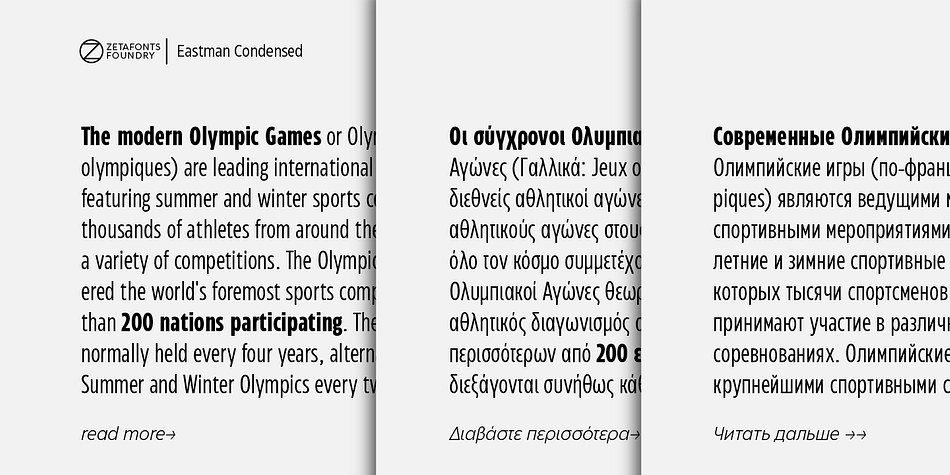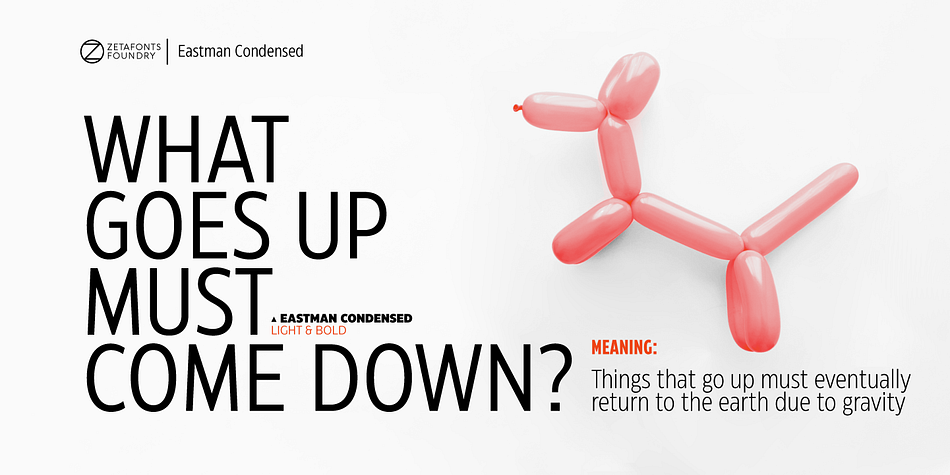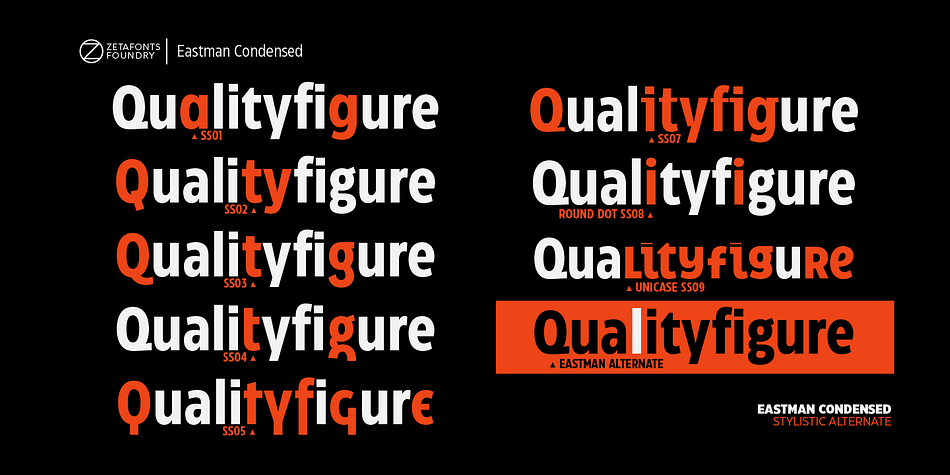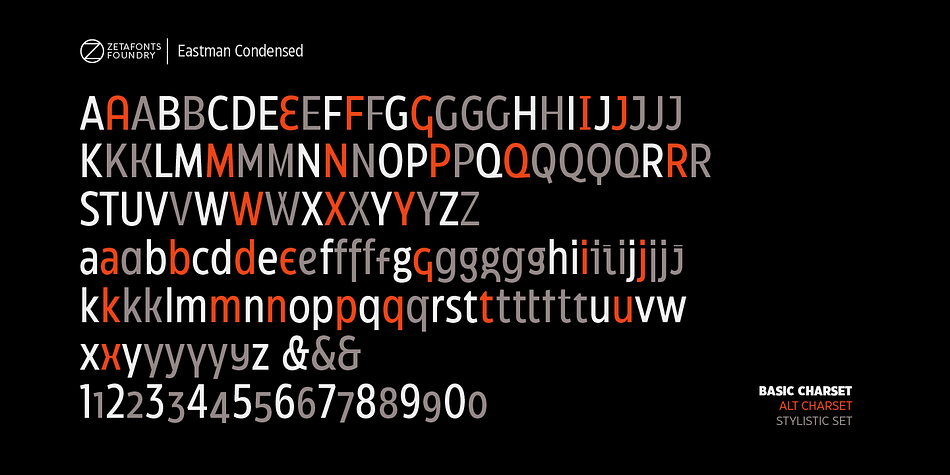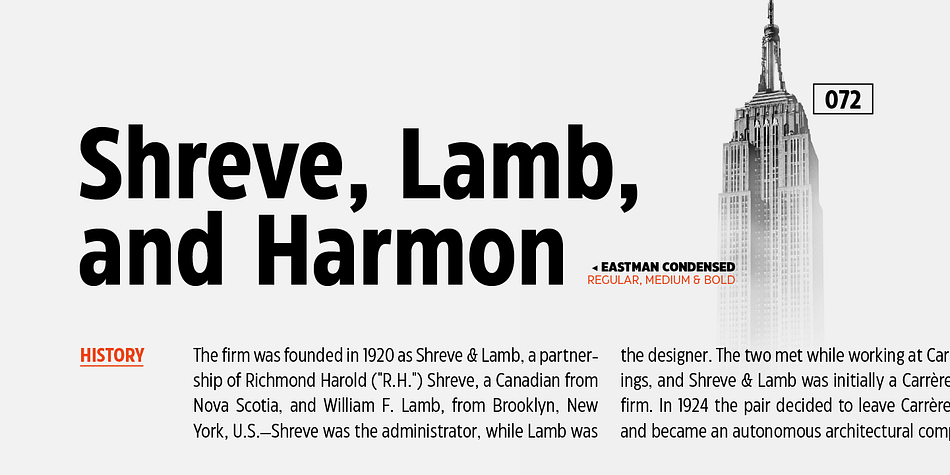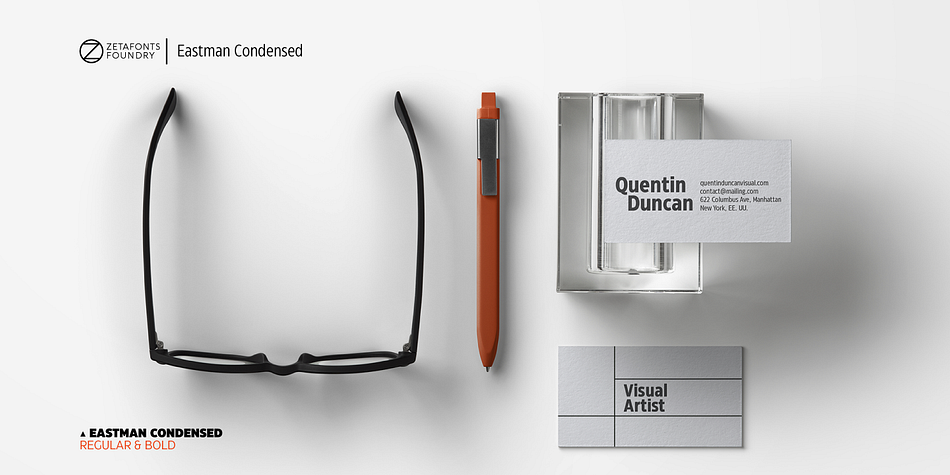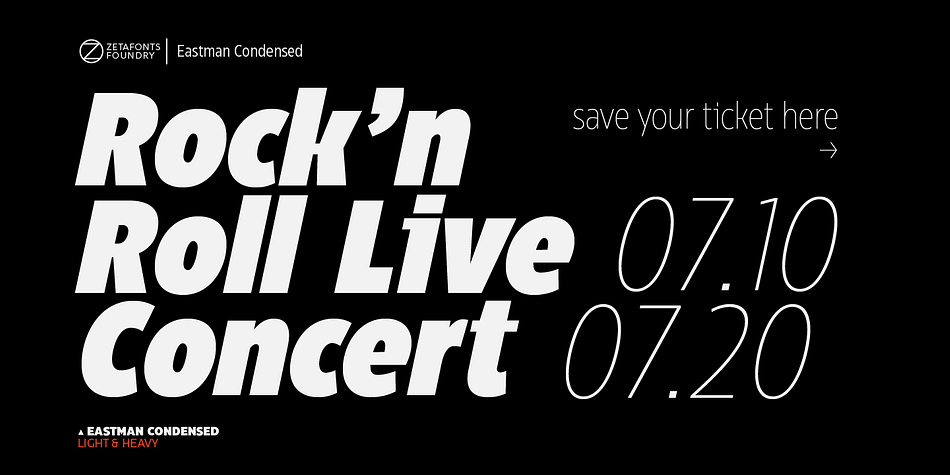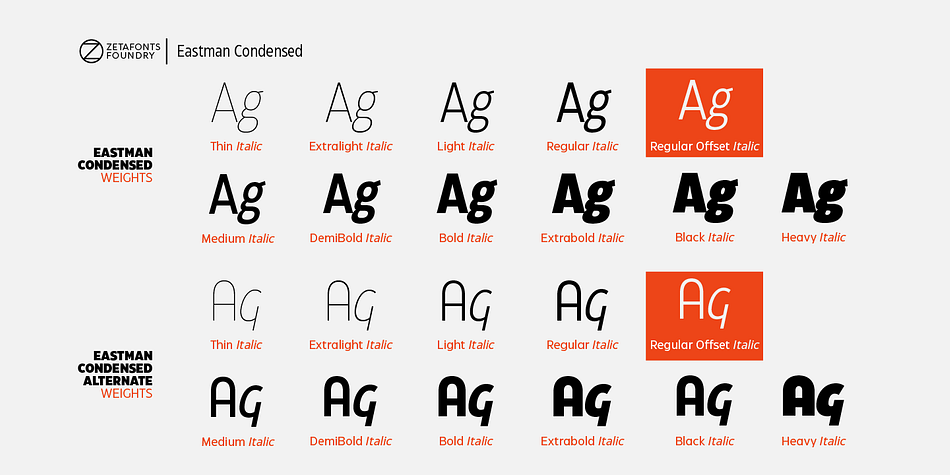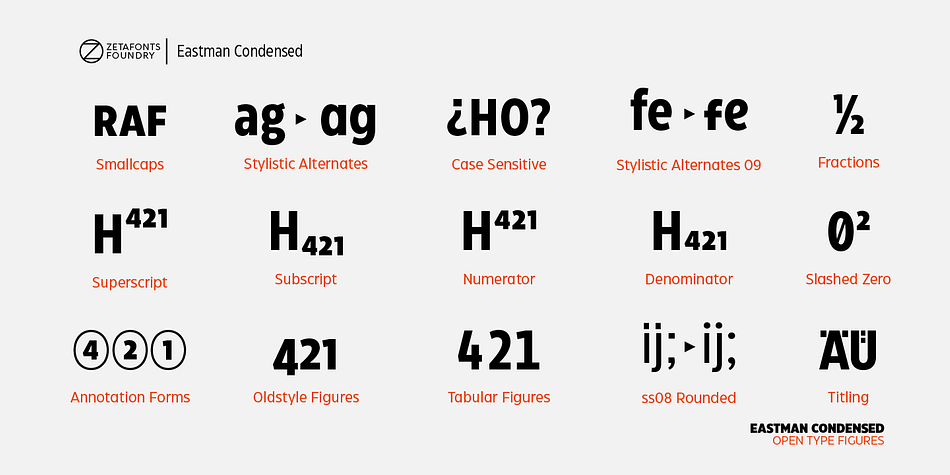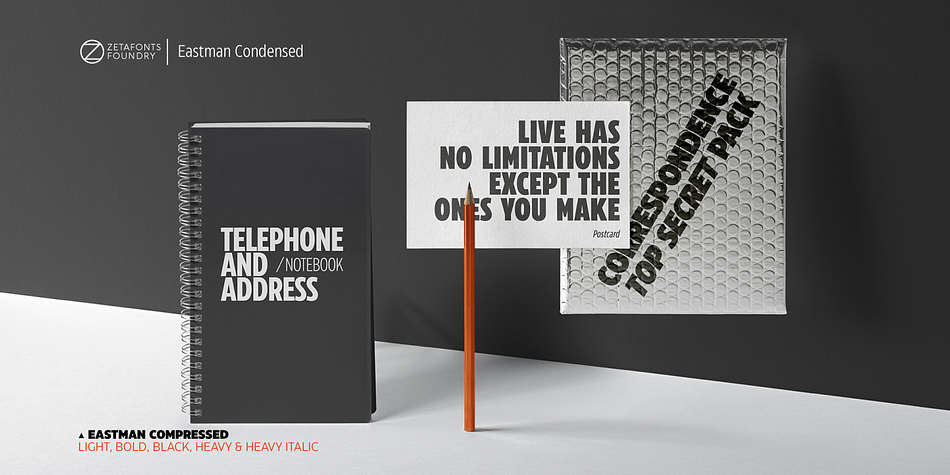
Designed by Francesco Canovaro, Andrea Tartarelli and Cosimo Lorenzo Pancini, Eastman Condensed is a sans serif font family. This typeface has eighty-eight styles and was published by Zetafonts.
Designed in 2020 for Zetafonts by Francesco Canovaro and Andrea Tartarelli with help from Solenn Bordeau and Cosimo Lorenzo Pancini, the original Eastman typeface family was conceived as a geometric sans workhorse family developed for maximum versatility both in display and text use. The original wide weight range has been complemented with three more additional widths, to give you maximum control over the appearance of text in your page. While Eastman Compressed and Eastman Condensed behave as space-saving condensed families, Eastman Grotesque adapts the family design style to humanist proportions. All share a solid monolinear design and a tall x-height that makes body text set in Eastman extremely readable on paper and on the screen.
Influenced by Bauhaus ideals and contemporary minimalism, but with a nod to the pragmatic nature 19th century grotesques, Eastman has been developed as a highly reliable tool for design problem solving, and given all the features a graphic designer needs - from a wide language coverage (thanks to over one thousand and two hundred latin, Cyrillic and greek characters) to a complete set of open type features (including small capitals, positional numbers, case sensitive forms). The most impressive feature of all Eastman fonts remains the huge choice of alternate characters and stylistic sets that allows you to fine-tune your editorial and branding design by choosing unique, logo-ready variant letter shapes. Don’t want to lose too much time with the glyphs palette? Use the Eastman Alternate weights, thought for display use and presenting a selection of some of the more eye catching & unusual letter shapes available for the family.